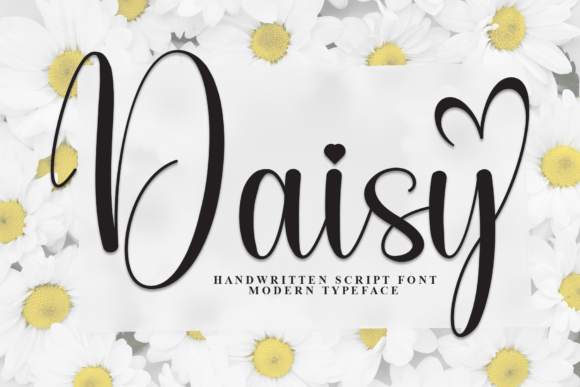
The Power of Handwritten Charm: Unveiling the Daisy Font
Have you ever stumbled upon a beautiful handwritten note that instantly makes you feel special? Maybe it was a love letter, a birthday card, or a heartfelt apology. Whatever it was, I’m sure it left a lasting impression. For designers, capturing that same emotional connection in their work is a constant challenge. That’s where the Daisy Font comes in – a stylish handwritten script font that brings a touch of modern elegance and playfulness to any design.
Whether you’re creating logos, packaging, or invitations, the Daisy Font is the perfect addition to your design arsenal. Its fluid strokes and charming curves add a personal feel to every project, making it stand out from the crowd. With the Daisy Font, you can infuse your designs with warmth, sophistication, and creativity that resonates with your audience.
Daisy Font Key Features
- Unique Characteristics: This font features a distinctive, cursive design with a playful and elegant feel, making it perfect for creative and artistic projects.
Daisy Font Review
I recently had the chance to work with the Daisy Font, and overall, I have mixed feelings about it.
- The Daisy Font has a charming, playful feel to it, which makes it perfect for designs that need a touch of whimsy.
- The font is highly legible, even at smaller sizes, making it great for body text or titles.
- The font’s flexibility in terms of weight and style options is a big plus, allowing designers to create a range of looks.
- The Daisy Font can feel a bit too playful for more formal or serious designs, which might limit its use in certain contexts.
- The font’s rounded edges can sometimes make it difficult to read at very small sizes or in low-contrast situations.
- The font’s weight options can sometimes feel a bit inconsistent, which can affect the overall look of a design.
The Daisy Font is a solid choice for designers looking to add a bit of personality to their work. While it may not be the best fit for every project, it’s definitely worth considering for designs that need a touch of playfulness and whimsy. With a bit of caution and attention to its limitations, the Daisy Font can be a valuable addition to any designer’s toolkit.
The Daisy font is ideal for:
- Children’s party invitations and greeting cards
- Illustrations and graphics
- Titles and headings for presentations
- Friendlier and more approachable designs
Alternatives to Daisy Font for Designers